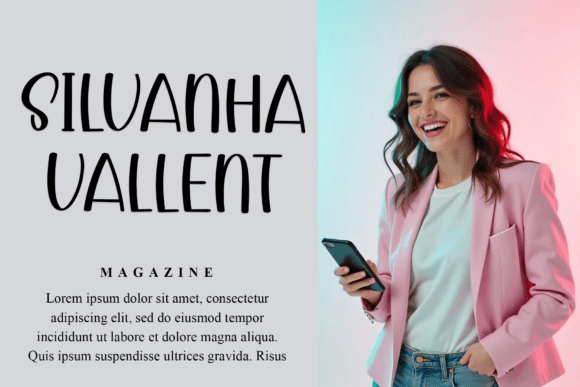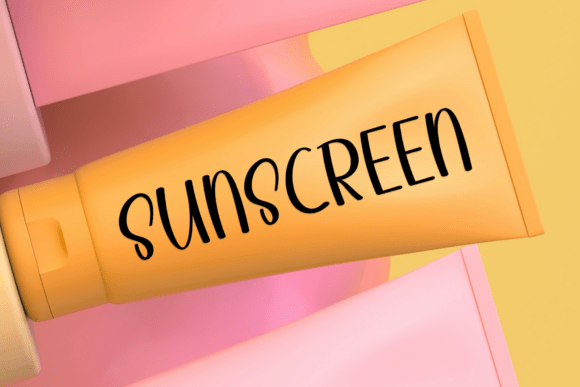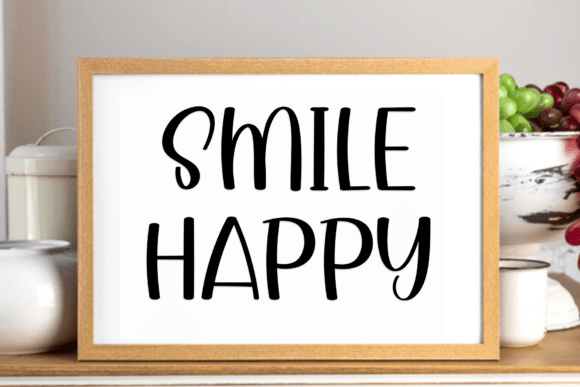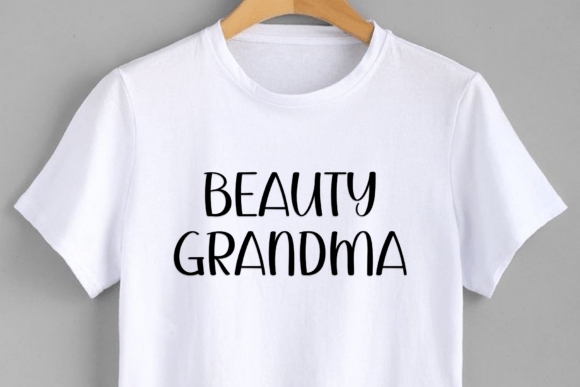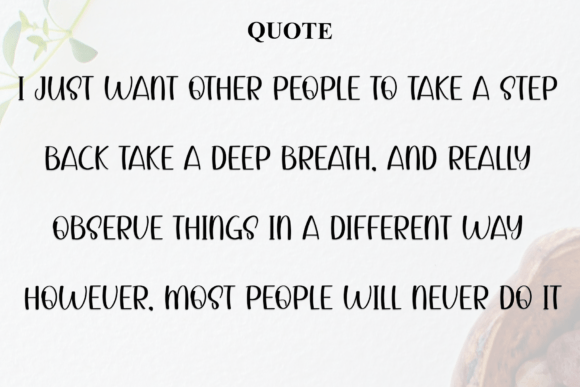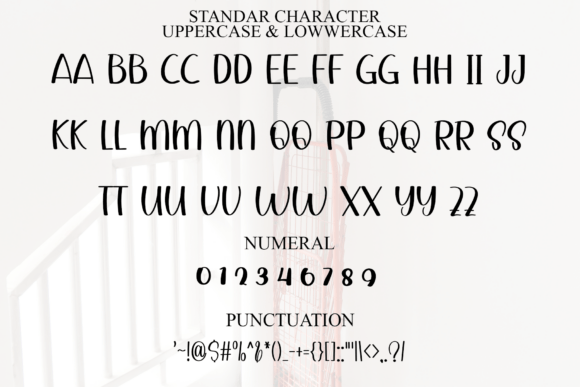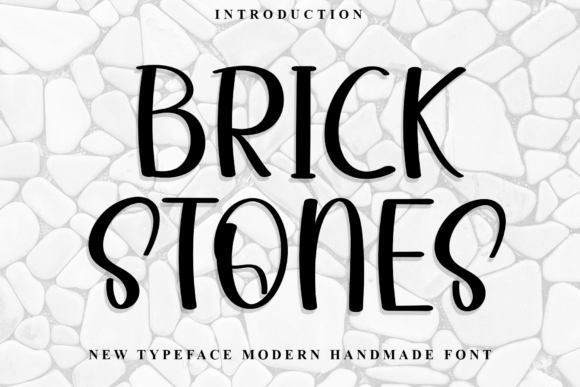
The Ultimate Guide to Brick Stones Font: Adding a Touch of Warmth to Your Designs
I’ll never forget the time I was working on a project for a client’s birthday party invitation. I had the design concept all sorted out, but I just couldn’t seem to find the right font to match the playful and festive vibe I was going for. That’s when I stumbled upon Brick Stones Font, and it instantly became the perfect fit. The casual, creative, and warm feel of this font completely transformed my design, and my client loved it! In this article, I’ll share with you why I’m obsessed with Brick Stones Font, its features, and how to make the most of it in your designs.
An Honest Review of Brick Stones Font
What I Love About Brick Stones Font
• ✨ The playful, hand-drawn aesthetic that adds a fun and unique touch to any design
• ✅ The round, smooth strokes that create a relaxed and approachable feel
• ✨ The perfect blend of warmth and friendliness, making it ideal for personal projects and social media graphics
While Brick Stones Font is an amazing addition to any design project, there are a few things to keep in mind:
• ⚠️ Limited use in formal or professional settings, as it may come across as too casual
• 🤔 May not be the best choice for body text, as it’s more suited for headings and titles
The Backstory Behind Brick Stones Font
Brick Stones Font was designed with the intention of creating a warm and friendly font that would add a personal touch to any design project. The designer wanted to create a font that would evoke feelings of nostalgia and playfulness, while also being easy to read and versatile. The result is a font that’s perfect for creative hobbyists, designers, and crafters who want to add a unique touch to their designs.
Q: What is Brick Stones Font?
Brick Stones Font is a casual and creative font that exudes warmth and friendliness. Its round, playful strokes create a relaxed and approachable feel, perfect for personal projects, invitations, and social media graphics.
Q: Is Brick Stones Font suitable for formal or professional settings?
No, Brick Stones Font is more suited for casual and creative projects. It may come across as too casual for formal or professional settings.